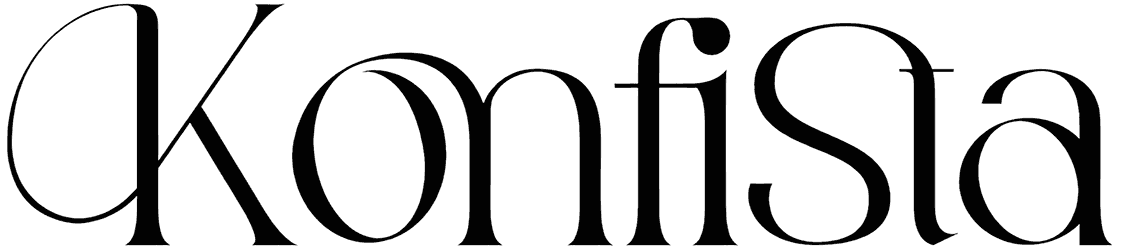
Konfista Font
Professionally add an elegant touch with Konfista, a striking serif font with good readability that will make your work stand out from the rest. It doesn’t have numbers, but other characters are supported. This logo font can be used for wedding invitations, business cards, book covers, branding materials, classic theme designs, and more.
Konfista is one of the most stylish fonts designed to create the perfect contrast between your headings and body copy. Bring your branding to life and add a touch of modernity and style with Konfista. It is ideally applicable for your social media banners, posts, ads, printed quotes, t-shirt designs, packagings, or even modern texts overlaying any background images.